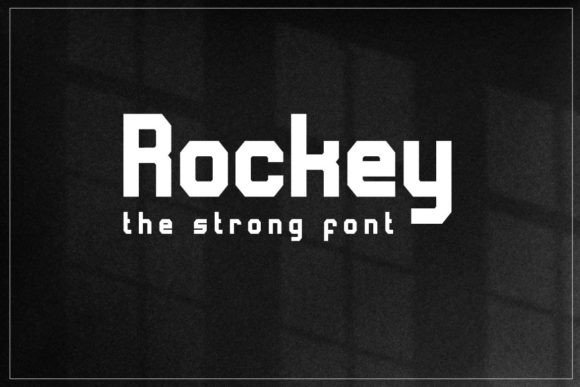
Unleash the Power of Expression with Rockey Font: A Poetic Symphony for Your Creative Soul
Embark on a typographic voyage with Rockey Font, a display font that radiates strength and assertiveness, leaving an indelible mark on your creative endeavors. Its bold and confident strokes command attention, effortlessly elevating any creation to new heights.
Rockey is a font with a purpose, meticulously crafted to resonate with the soul of poetry. Its robust yet graceful stance provides the perfect canvas for expressing emotions, thoughts, and narratives that yearn for a voice. Dive into the depths of your imagination and let Rockey be your trusted companion, transforming words into a visual masterpiece.
Experience the versatility of Rockey Font, as it effortlessly adapts to a myriad of design landscapes. Create stunning posters and flyers that capture the essence of poetry, where each letter becomes a brushstroke, painting a vivid tapestry of emotions. Craft eye-catching social media graphics that demand attention, making your messages stand out in the digital realm. Unleash the power of self-expression with personalized greeting cards, invitations, and letters, imbuing your words with a touch of elegance and individuality.
With Rockey Font, your poetic creations will resonate with readers, leaving an enduring impression. Its ability to convey emotion and meaning through its distinctive letterforms will captivate audiences, drawing them into the depths of your written artistry. Let Rockey be your muse, inspiring you to explore uncharted territories of creativity, where words dance and emotions ignite.
Join the ranks of creative visionaries who have discovered the transformative power of Rockey Font. As a member of the Mightyfire font family, Rockey is a testament to excellence, meticulously designed to empower artists, writers, and designers alike. Embrace the limitless possibilities of this remarkable font and embark on a creative journey where every word becomes a work of art.
Prepare to be captivated by the allure of Rockey Font, a font that speaks to the heart and soul. Its ability to breathe life into poetry, elevate designs, and inspire creative expression is truly remarkable. Download Rockey Font today and unlock the gateway to a world where words dance with passion and imagination. Let your creative spirit soar and discover the boundless possibilities that await.